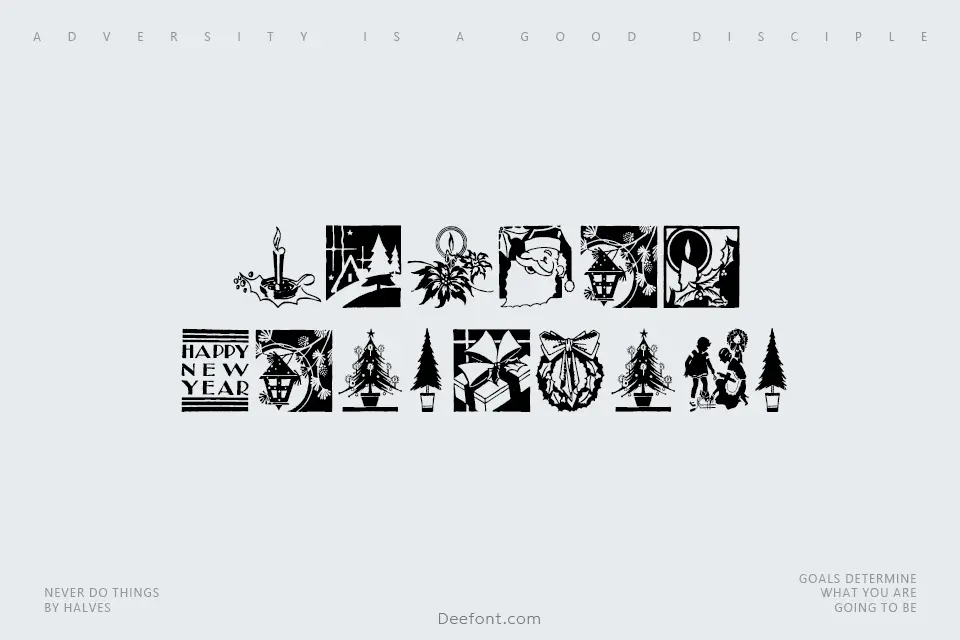
Cobb Shinn Christmas Cuts Font
Cobb Shinn Christmas Cuts is a festive holiday-themed dingbat font featuring unique vintage Christmas ornaments, decorations, and seasonal elements digitized from authentic early 1950s stock cuts. Designed by Jeff Levine based on the iconic Cobb Shinn Company’s original print materials, this distinctive display typeface brings nostalgic charm to holiday greetings, cards, and festive publications. Perfect for adding authentic period-appropriate Christmas embellishments to creative projects.